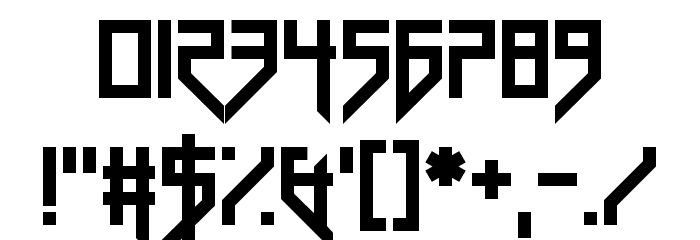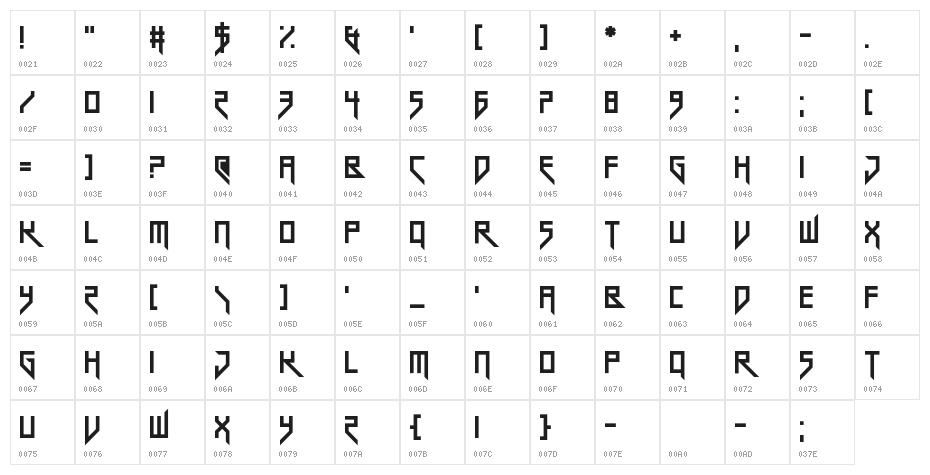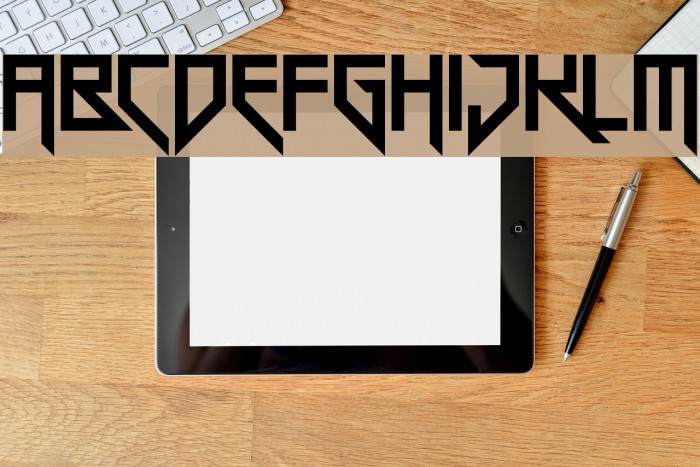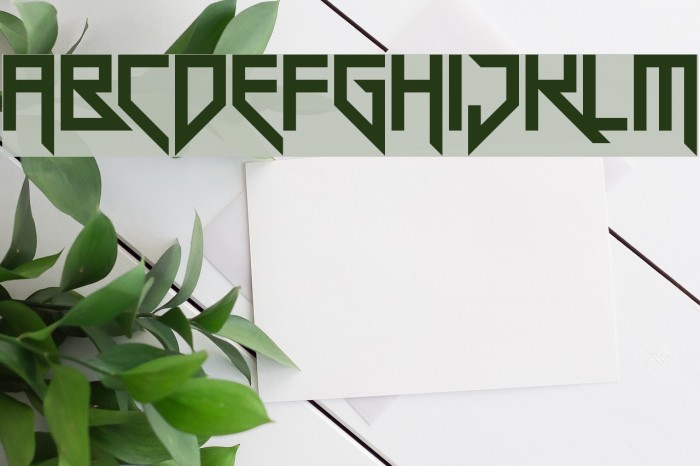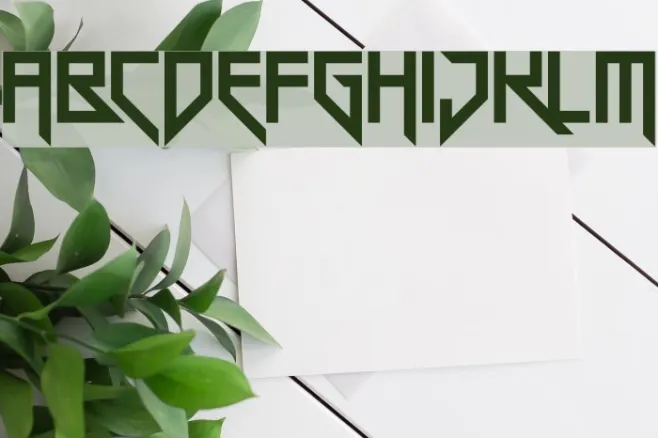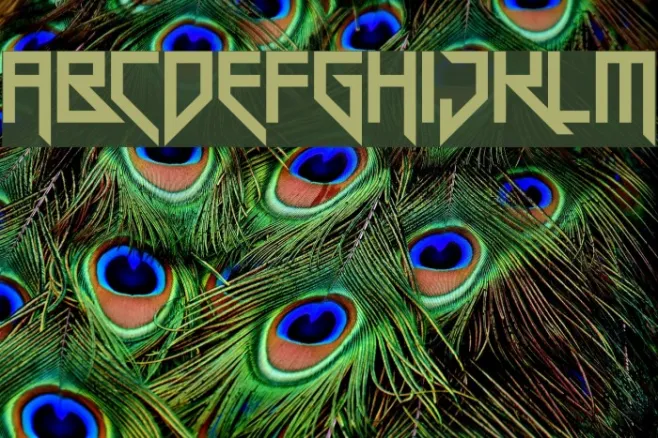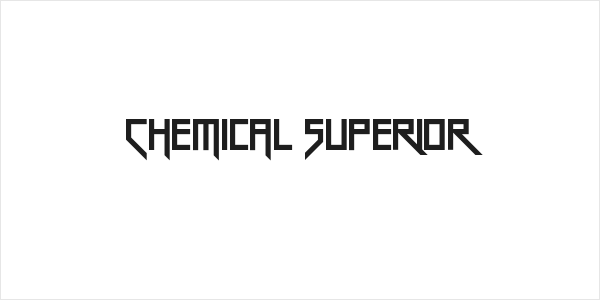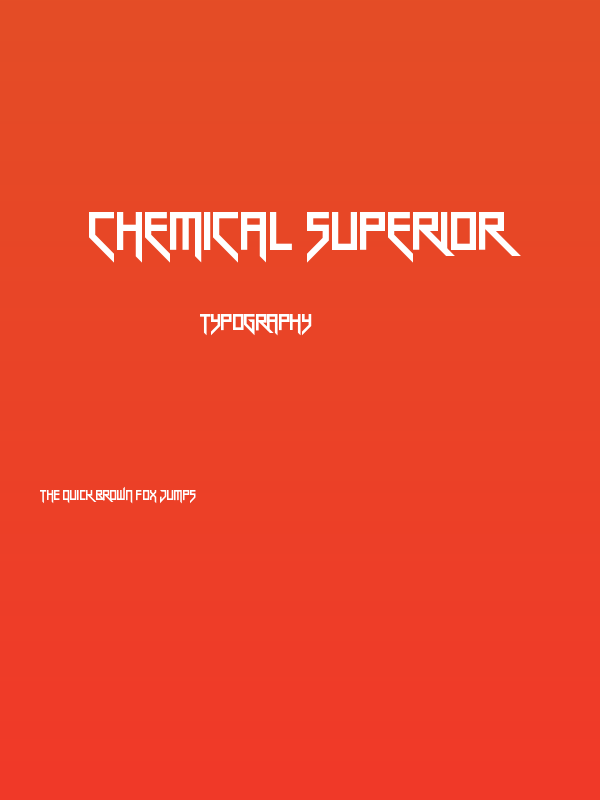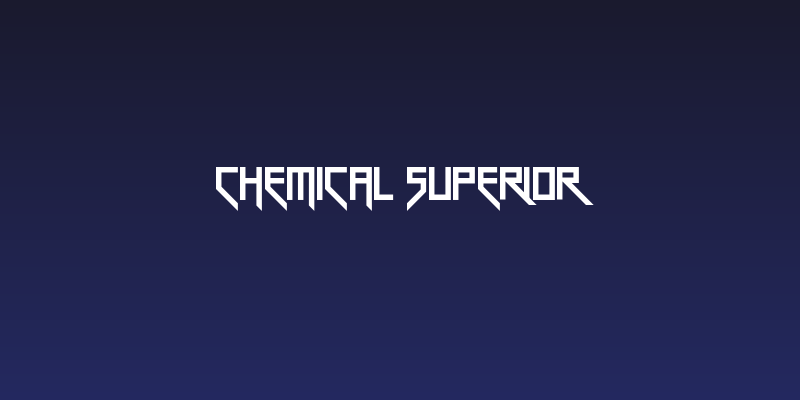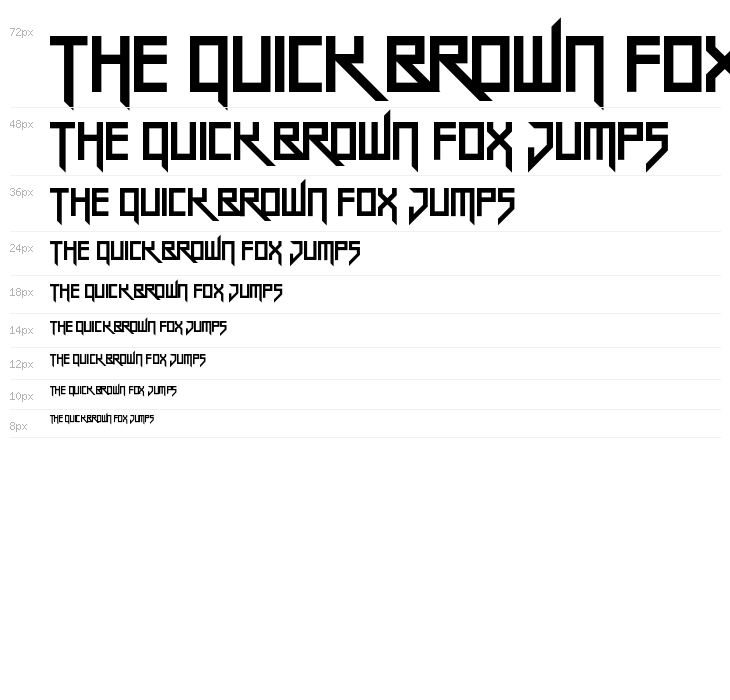
Chemical Superior Font
Chemical Superior Description
This font features a bold and geometric design with sharp angles and a futuristic aesthetic. The characters are constructed with straight lines and pointed edges, giving it a distinct, edgy appearance. The uppercase and lowercase letters maintain a consistent style, while the numbers and special characters complement the overall design. This font is highly stylized, making it suitable for projects that require a modern and striking visual impact.
Overall StyleFuturistic, Edgy
Proposed ProjectsIdeal for sci-fi themed designs, video game graphics, posters, and branding that requires a modern and edgy feel.